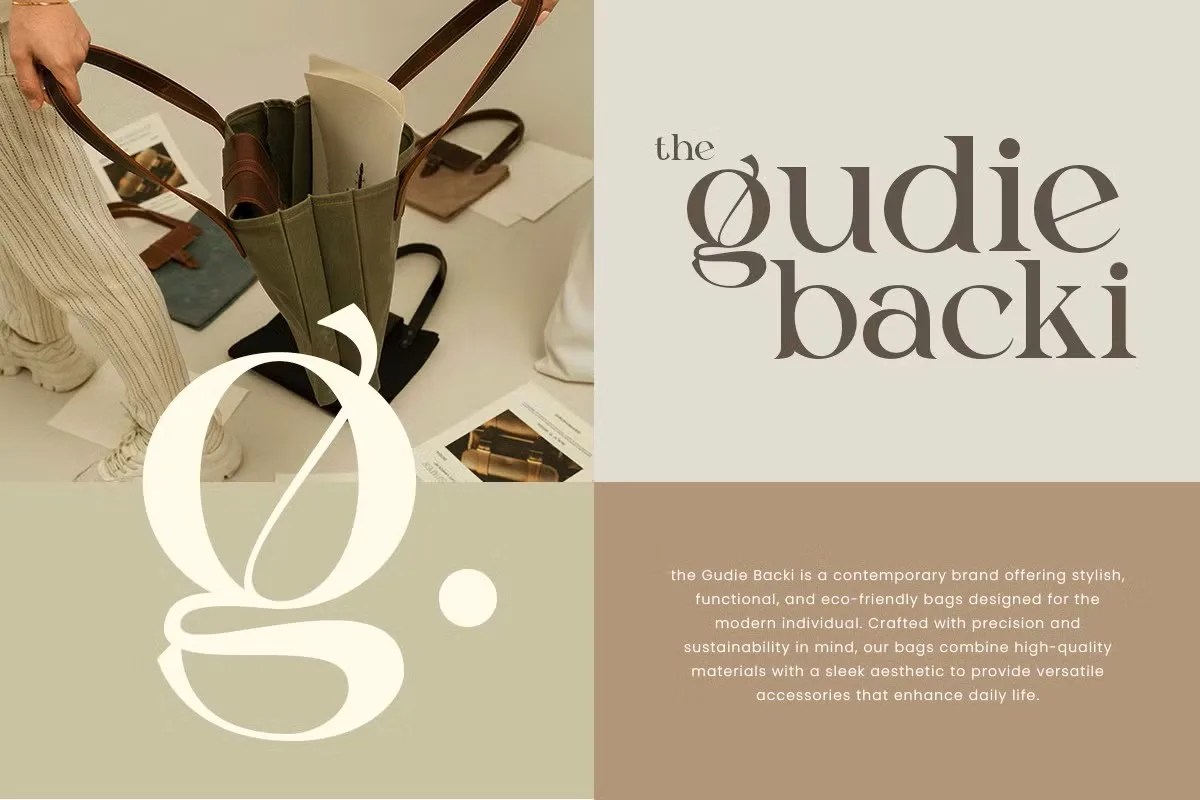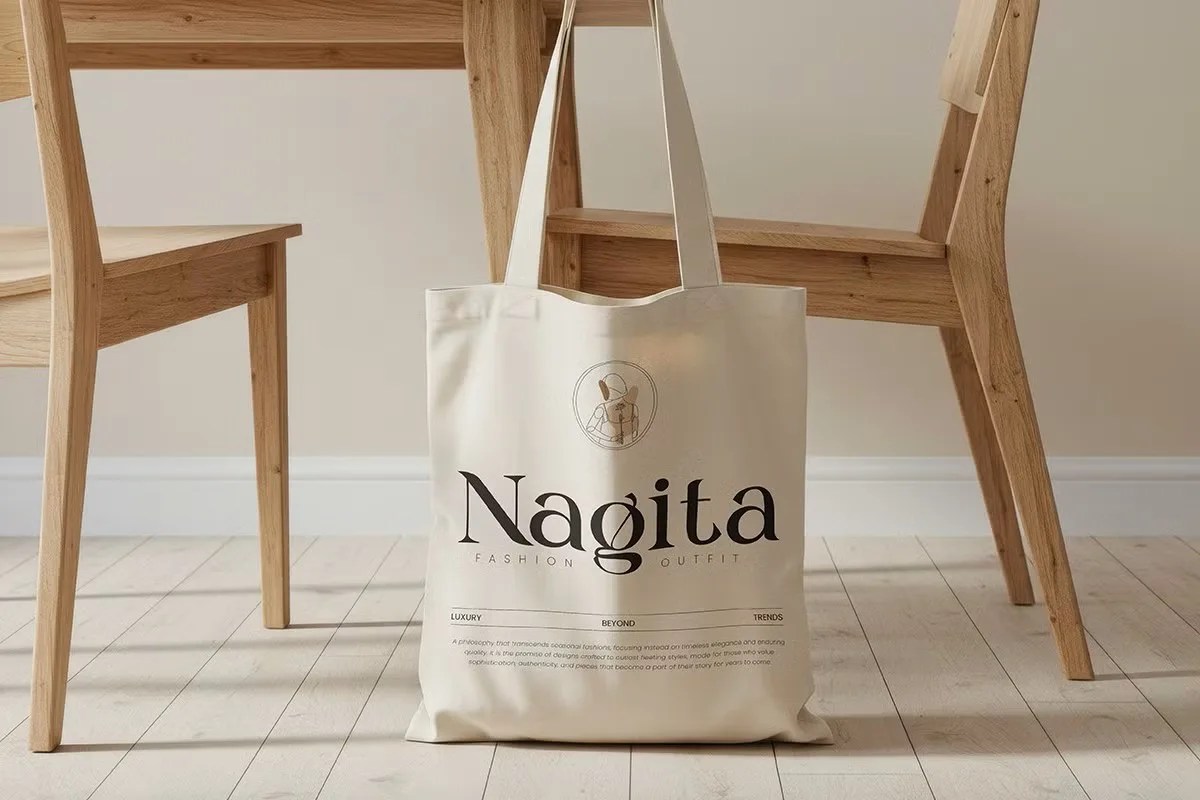
Caluxe by Roomspace. This is a stunning luxury serif font that embodies sophistication in every curve. The name itself suggests a beautiful blend of classic forms and modern luxury. Roomspace designed this typeface specifically for high-end projects. It provides an immediate sense of prestige and quality to any design, making a powerful first impression without ever raising its voice.
This font is a perfect tool for designers working in the luxury market. Specifically, it excels in high-fashion branding and editorial spreads. It adds an air of exclusivity instantly. Furthermore, this luxury serif font can transform a simple wedding invitation into a sophisticated work of art. Use it for the branding of five-star hotels, exclusive cosmetic lines, or fine-dining restaurant menus. Its sophisticated character elevates any project it touches, making it look polished and prestigious.
• Elegant and luxury serif style
• Features high-contrast strokes and delicate serifs
• Ideal for fashion, branding, and editorial design
• Provides a sophisticated and prestigious feel